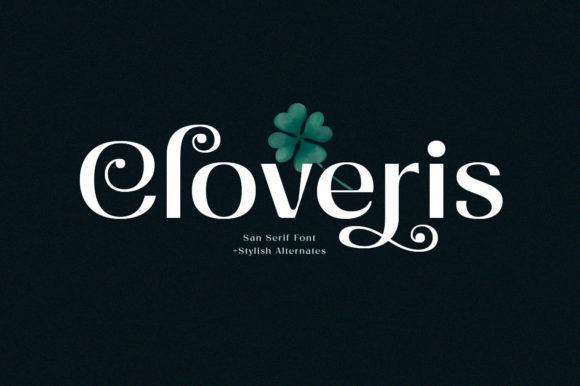
Cloveris Font: Elevate Your Designs with Sophistication and Flair
In the world of typography, fonts play a crucial role in conveying the tone and personality of a design. For designers and crafters looking to add a touch of sophistication and uniqueness to their projects, Cloveris Font is an excellent choice. This stunning sans serif font boasts distinctive swirls and swashes, making it perfect for headlines, titles, and a wide range of creative applications.
The Unique Charm of Cloveris Font
Cloveris Font stands out from the crowd with its elegant and refined letterforms. The font’s sans serif design provides a clean and modern look, while the unique swirls and swashes add a touch of whimsy and flair. This combination of simplicity and sophistication makes Cloveris Font an ideal choice for designers seeking to create visually striking designs.
Ideal for Headlines and Titles
Cloveris Font is specifically designed to make a statement. Its bold and eye-catching letterforms make it perfect for headlines and titles, where grabbing the reader’s attention is crucial. Whether you’re designing a magazine cover, a book title, or a website header, Cloveris Font is sure to make a lasting impression.
Beyond Headlines: Versatile Applications for Cloveris Font
While Cloveris Font excels in headlines and titles, its versatility extends far beyond. This font can be used in a wide range of creative projects, including:
- Invitations: Add a touch of elegance to wedding invitations, birthday parties, and other special events.
- Labels: Create eye-catching labels for products, packaging, and branding materials.
- Logos: Use Cloveris Font to create a unique and memorable logo for your business or brand.
- Magazines: Elevate your magazine design with Cloveris Font’s sophisticated and modern look.
- Greeting/Wedding Cards: Add a personal touch to your cards with Cloveris Font’s beautiful letterforms.
- Packaging: Make your product packaging stand out with Cloveris Font’s bold and eye-catching design.
- Fashion/Make-up: Use Cloveris Font to create stunning branding materials for your fashion or make-up business.
- Stationery: Elevate your stationery design with Cloveris Font’s elegant and refined look.
Why Choose Cloveris Font?
With so many fonts available, why choose Cloveris Font? Here are just a few reasons why designers and crafters love this font:
- Unique and distinctive: Cloveris Font’s swirls and swashes make it stand out from more traditional fonts.
- Sophisticated and elegant: This font’s refined design makes it perfect for formal and creative projects.
- Versatile: Cloveris Font can be used in a wide range of applications, from headlines to labels.
- Easy to read: Despite its unique design, Cloveris Font remains clear and easy to read.
Tips for Using Cloveris Font
To get the most out of Cloveris Font, here are a few tips to keep in mind:
- Use it sparingly: Cloveris Font’s bold design makes it best suited for headlines and titles. Use it sparingly to avoid overwhelming your design.
- Experiment with colors: Cloveris Font looks stunning in a range of colors. Experiment with different hues to find the perfect fit for your design.
- Pair it with other fonts: Cloveris Font pairs well with a range of other fonts. Experiment with different combinations to find the perfect contrast.
In conclusion, Cloveris Font is a sophisticated and versatile font that’s perfect for designers and crafters looking to add a touch of elegance and flair to their projects. With its unique swirls and swashes, refined design, and wide range of applications, Cloveris Font is sure to become a favorite in your design toolkit.